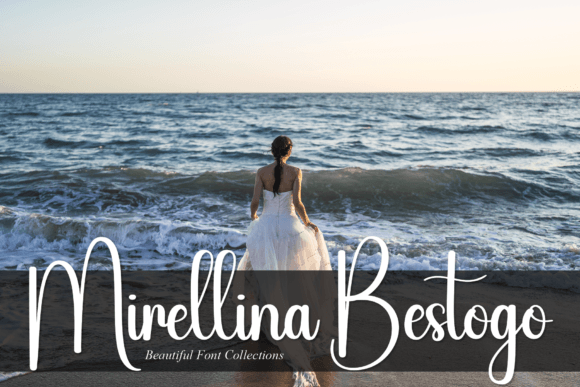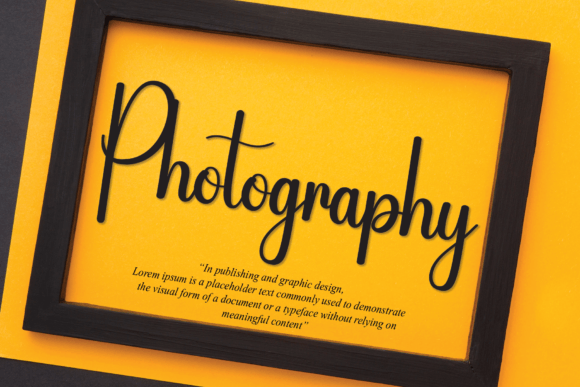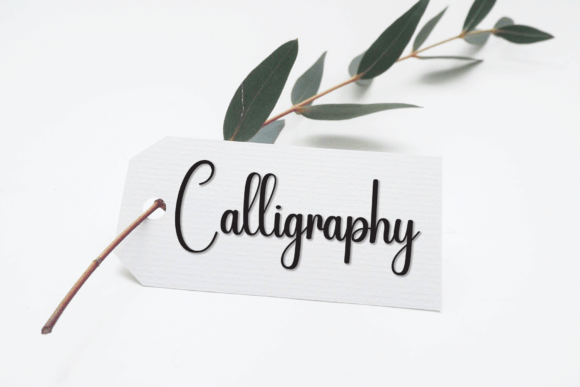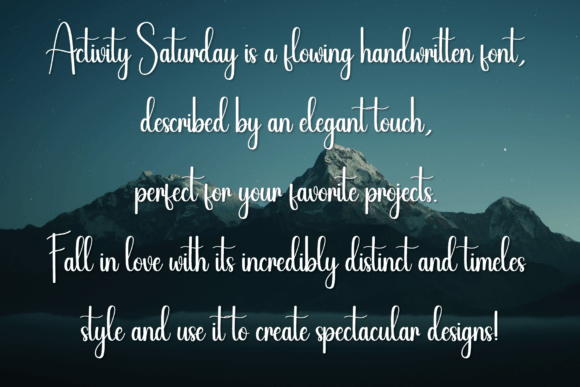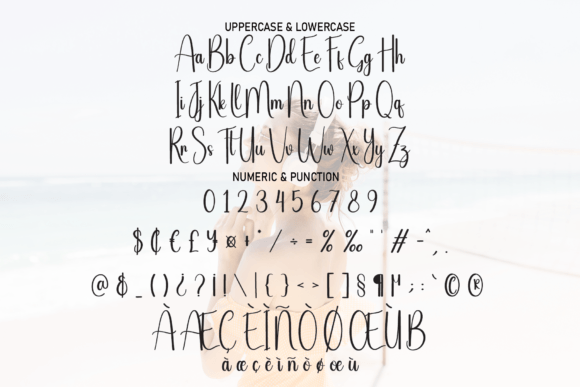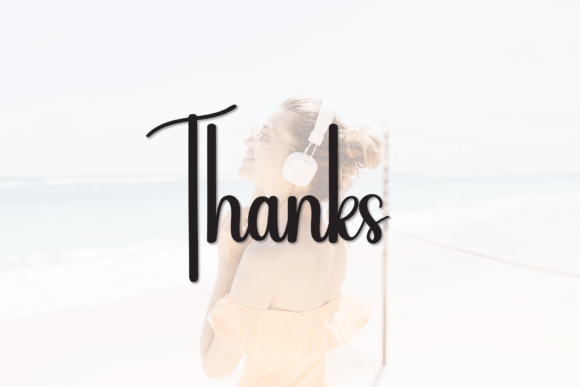
Activity Saturday Font
A Flowing and Elegant Handwritten Script
Activity Saturday is a graceful handwritten font created to bring beauty and sophistication to your projects. With smooth curves and a flowing style, it blends classic calligraphy with a modern touch. Whether you’re designing branding materials, event stationery, or social media graphics, Activity Saturday makes every project feel polished and special.
Its clean, balanced design ensures your work looks professional while still feeling warm and personal.
Activity Saturday is a versatile font you’ll find yourself using again and again. It’s ideal for wedding invitations, save-the-date cards, and thank you notes. The elegant strokes create a romantic and welcoming atmosphere that your guests will remember.
For branding, Activity Saturday works beautifully on logos, packaging, and business cards. The refined handwritten style helps your brand stand out while maintaining a premium, approachable feel.
This font is also great for quotes, greeting cards, and personalized gifts. Its authentic look adds warmth and personality to any message.
On social media, Activity Saturday ensures your posts look cohesive and stylish. Whether you’re announcing a sale or sharing inspiration, this font draws attention and adds a professional touch.
Despite its flowing, decorative style, Activity Saturday stays clear and easy to read at any size. Balanced spacing and smooth connections between letters keep your text clean and visually appealing.
For a modern and organized design, pair Activity Saturday with a minimalist sans-serif font. Use Activity Saturday for headlines and featured text, and the sans-serif for supporting details. This combination creates a polished layout that feels fresh and elegant.
To highlight Activity Saturday’s refined look, use neutral backgrounds and soft color palettes. Shades like ivory, blush pink, or warm gray help the font stand out without overwhelming your design.
When creating invitations or event signage, consider adding delicate illustrations or simple borders to complement the handwritten feel.
On social media, embrace white space to keep your content clean and easy to read. This approach helps your text remain the focus of your design.
Think about the mood you want to create. Activity Saturday is perfect for projects that should feel timeless, elegant, and inviting.
Activity Saturday isn’t just another script font—it’s a creative tool that helps you design with confidence and style. From weddings to branding, this font adapts seamlessly to any purpose while adding a touch of sophistication.
Adding Activity Saturday to your font collection ensures you always have a versatile, elegant option ready for any project. Whether you’re crafting logos, social media posts, or personal keepsakes, this font brings beauty and polish to everything you create.